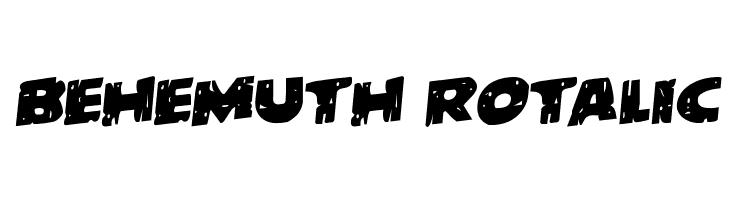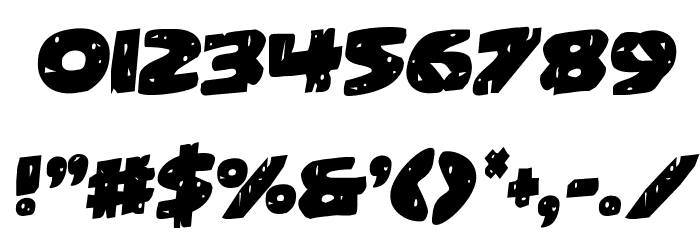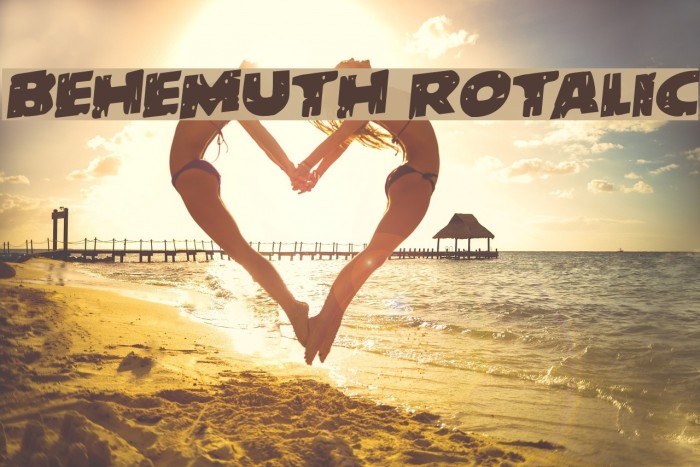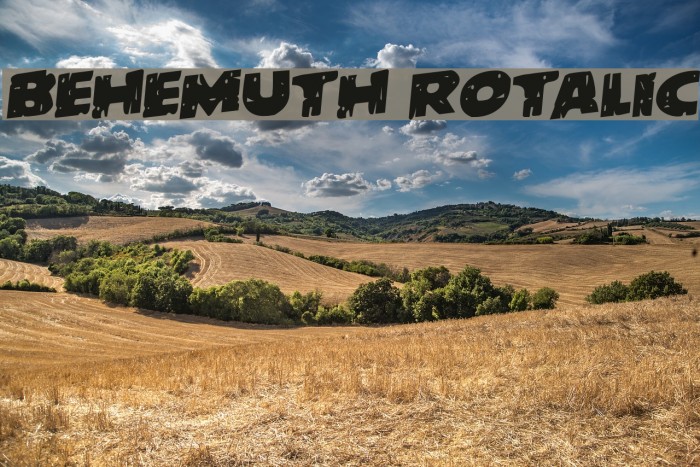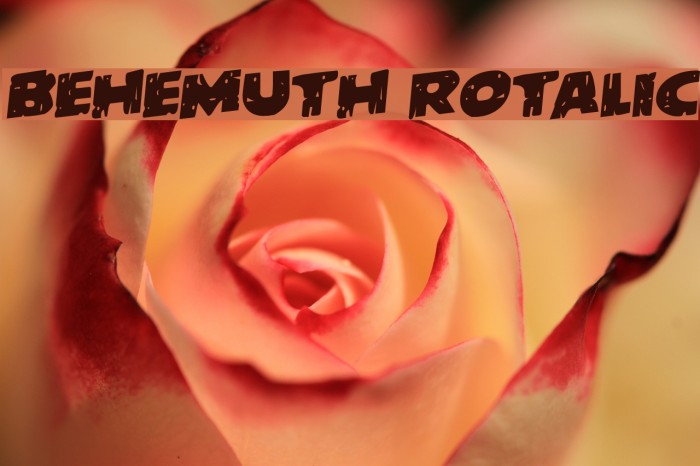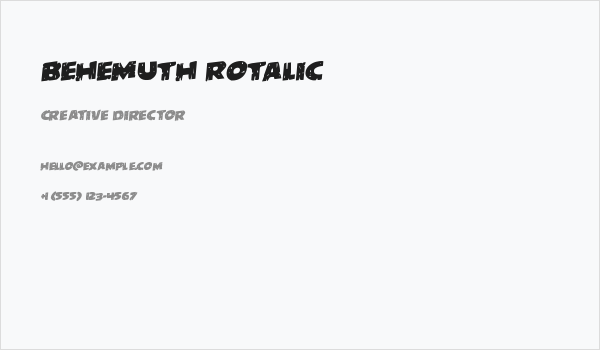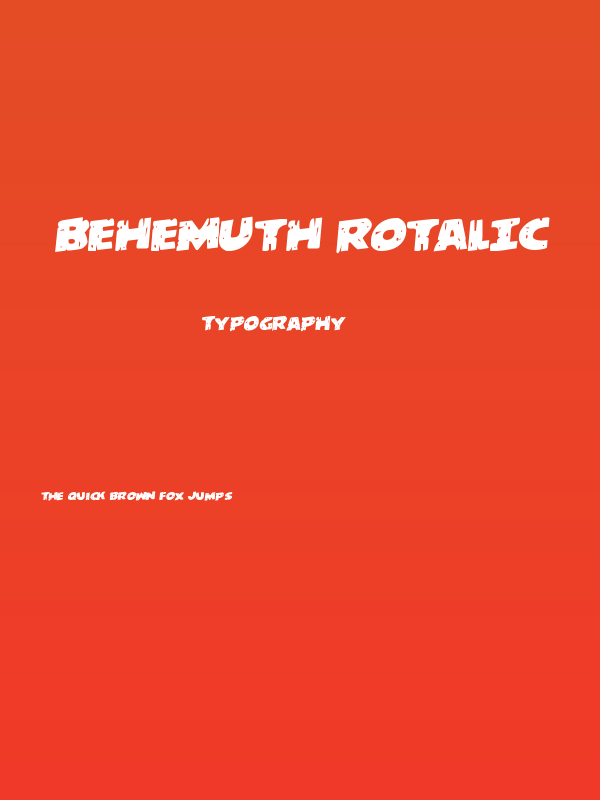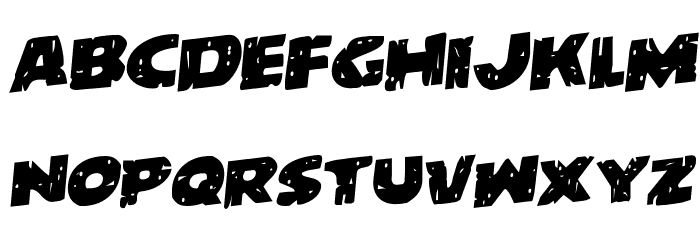
Behemuth Rotalic Font
Behemuth Rotalic Description
This font features a bold and dynamic style with a playful, graffiti-like appearance. The characters are heavily stylized, with irregular shapes and a sense of movement, giving it a lively and energetic feel. The strokes are thick and uneven, adding to its informal and artistic vibe. The font includes both uppercase and lowercase letters, numbers, and a variety of special characters, all maintaining the same bold and expressive design. It's perfect for projects that require a standout, eye-catching typeface.
| Proposed Projects | Ideal for street art designs, music album covers, posters, and creative branding projects. |